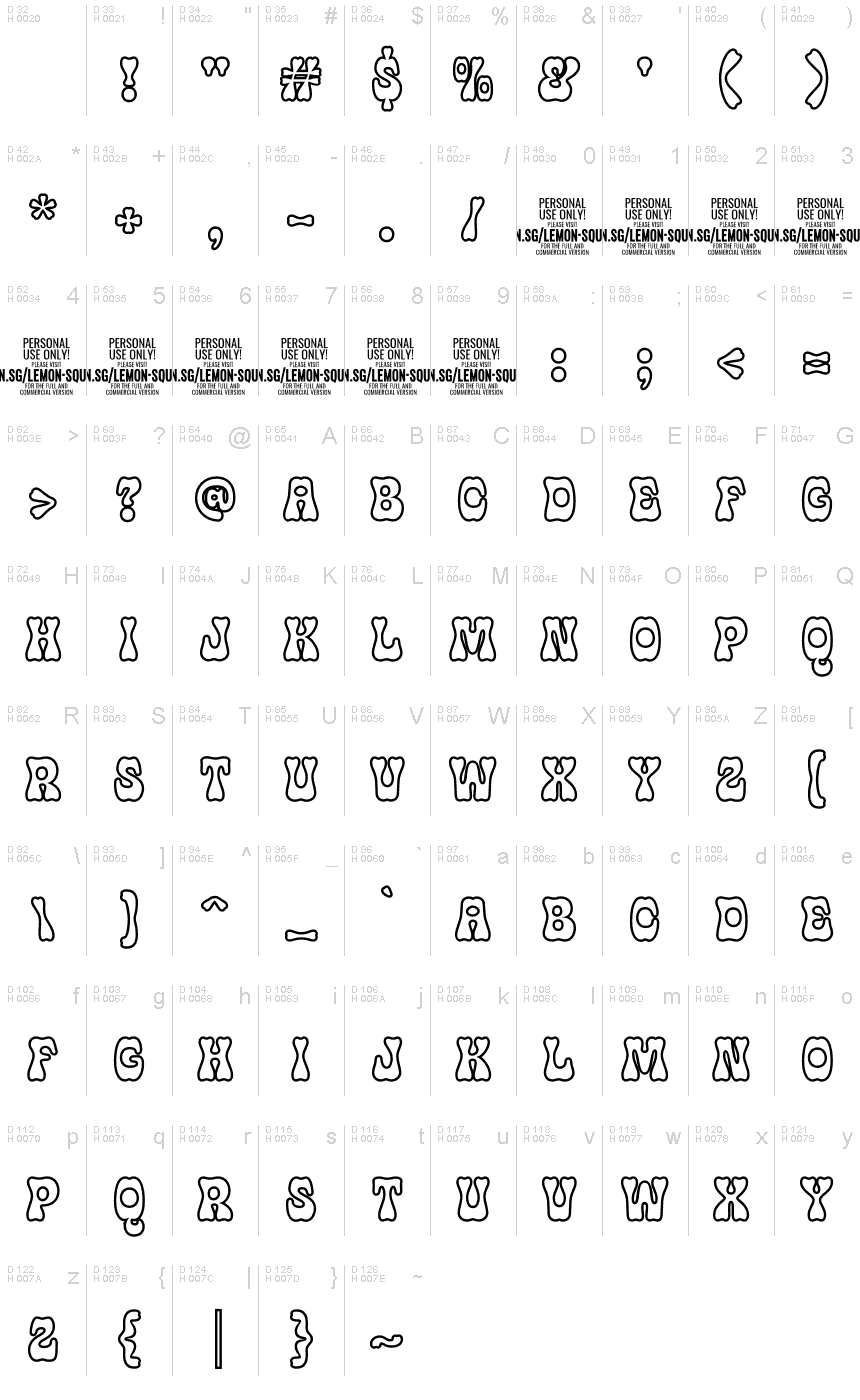
Lemon Squish Outline PERSONAL Regular
Lemon Squish Outline is a groovy display font from the talented designer Mans Greback. With its bold weight and outlined style, this font is perfect for projects that require a fun and playful touch. Use it for anything from party invitations to retro-inspired branding campaigns. Its unique look will make your project stand out from the crowd. The Lemon Squish family offers various styles, including regular, italic, and shadowed versions - allowing for even more creative possibilities. So go ahead and add some zest to your next design with Lemon Squish Outline!